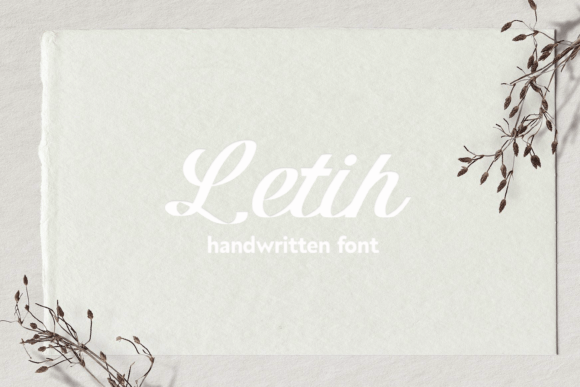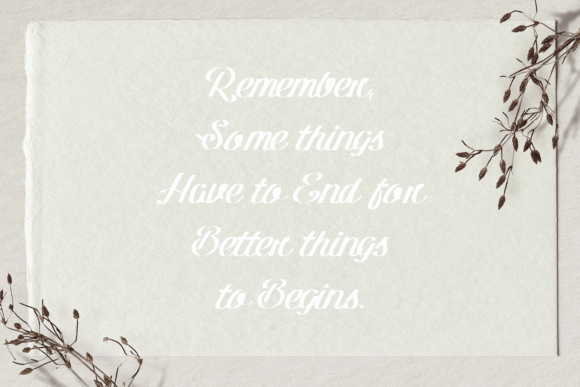
Letih Font
The Letih Font Download is a stylish and bold handwritten script that combines modern freshness with classic calligraphy. Its elegant strokes and confident style make it a versatile typeface for both personal and professional projects. Because of its refined yet approachable design, Letih is perfect for invitations, posters, branding, and digital content.
A Bold Handwritten Script with Elegance
Letih blends the sophistication of calligraphy with a fresh handwritten look. Unlike plain fonts, this Letih script font captures attention while staying clear and stylish. As a result, it is ideal for projects that need both strength and beauty.
Invitations and cards are always more appealing with a handwritten touch. The Letih Font works beautifully for wedding stationery, thank you cards, and birthday invitations. Moreover, its bold yet graceful strokes add personality and warmth to your messages.
Branding and Logo Design with Letih Font
Typography is crucial in shaping brand identity. The Letih handwritten font is excellent for logos, product packaging, and promotional campaigns. In addition, it gives businesses a modern, stylish character while maintaining a touch of elegance.
Posters, Titles, and Large-Scale Designs
Display projects require fonts that make a strong impact. The Letih Font Download performs well in posters, billboards, and magazine titles. Therefore, it is a perfect choice for designers who want to ensure their text remains bold and eye-catching.
Letih also adapts smoothly to online platforms. For example, the Letih typeface works well in Instagram posts, YouTube thumbnails, Pinterest graphics, and websites. Its stylish handwritten look makes digital content more engaging and visually striking.
Why Designers Choose Letih Typeface
Designers often need fonts that balance beauty with practicality. Many handwritten scripts lose readability at smaller sizes, but the Letih handwritten script stays clear without losing its stylish character. This makes it a reliable choice for professionals and hobbyists alike.
Add Stylish Confidence to Your Work Today